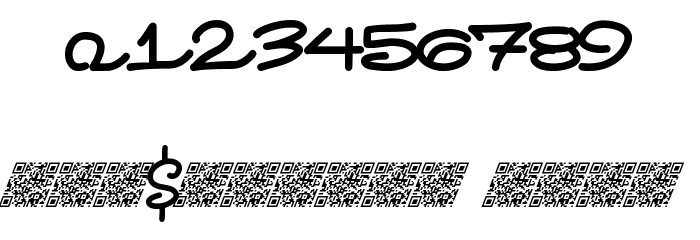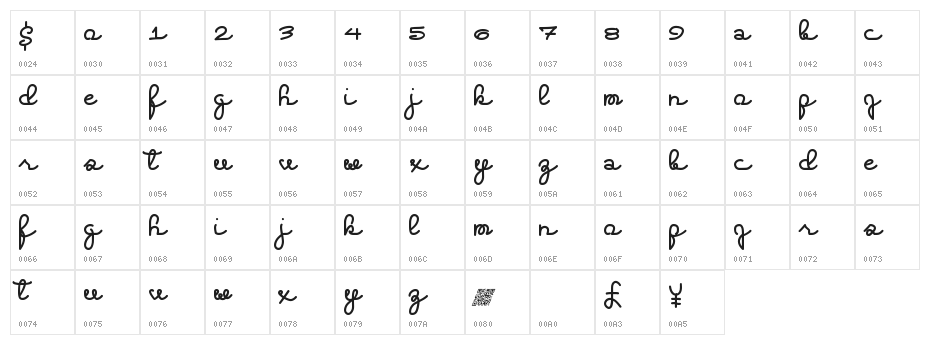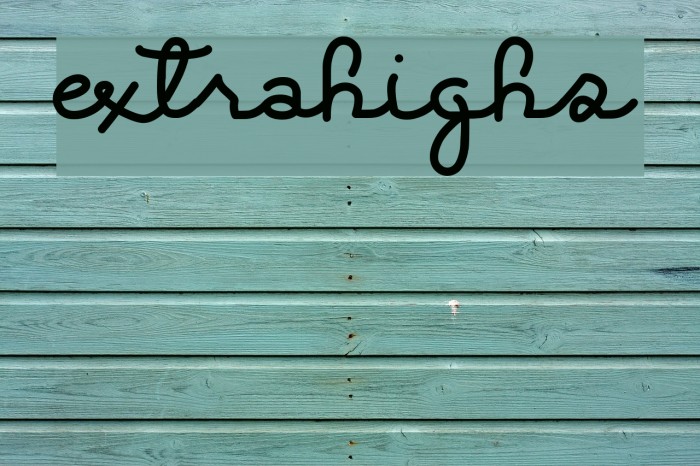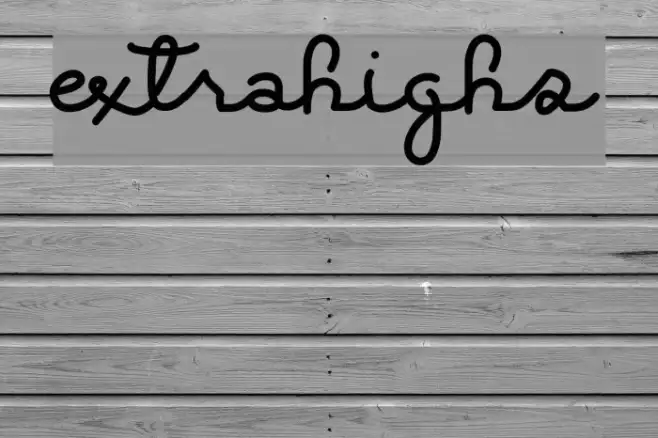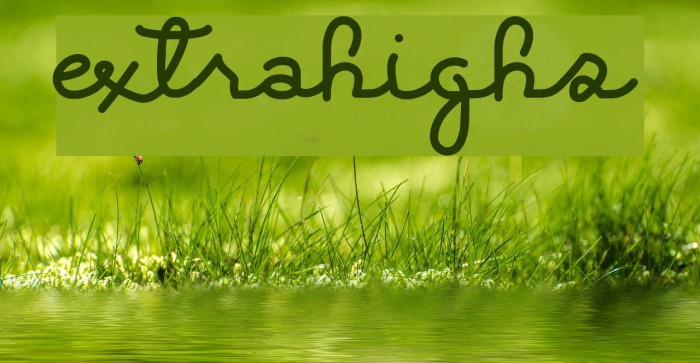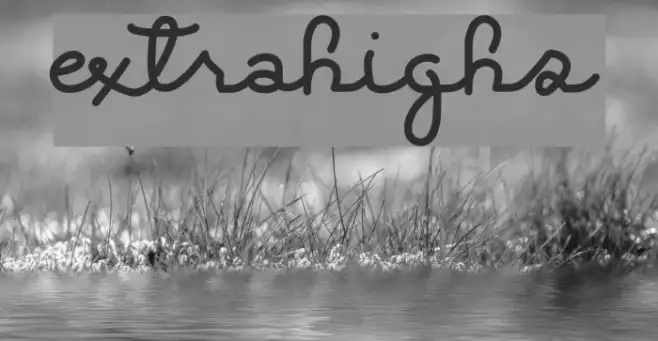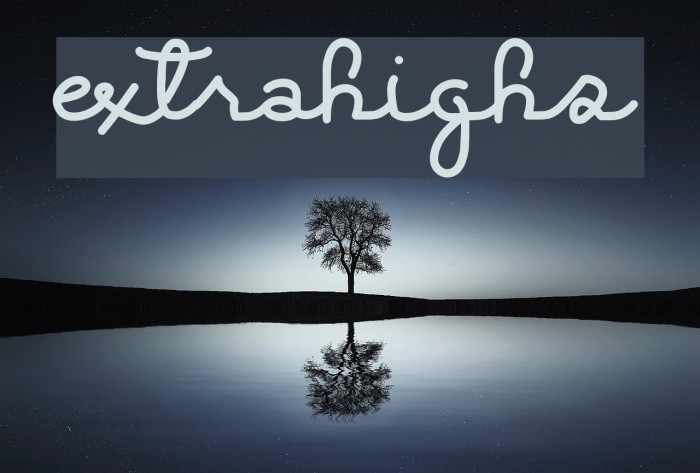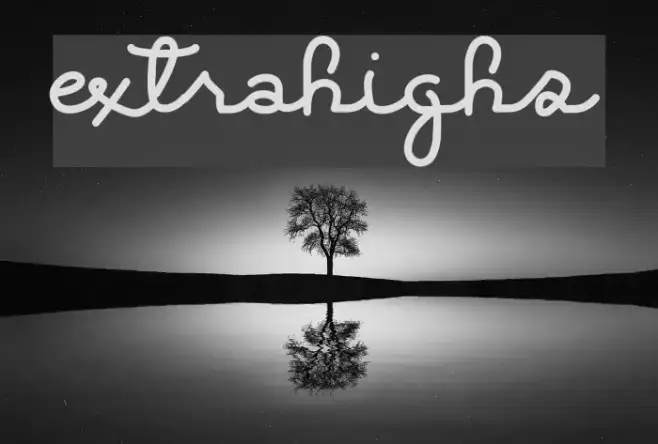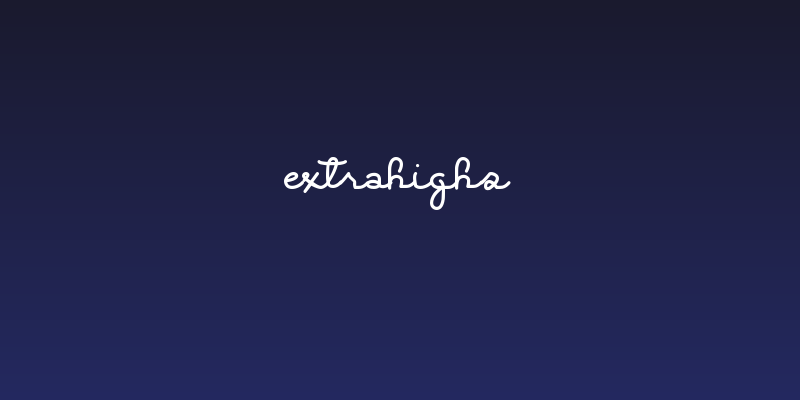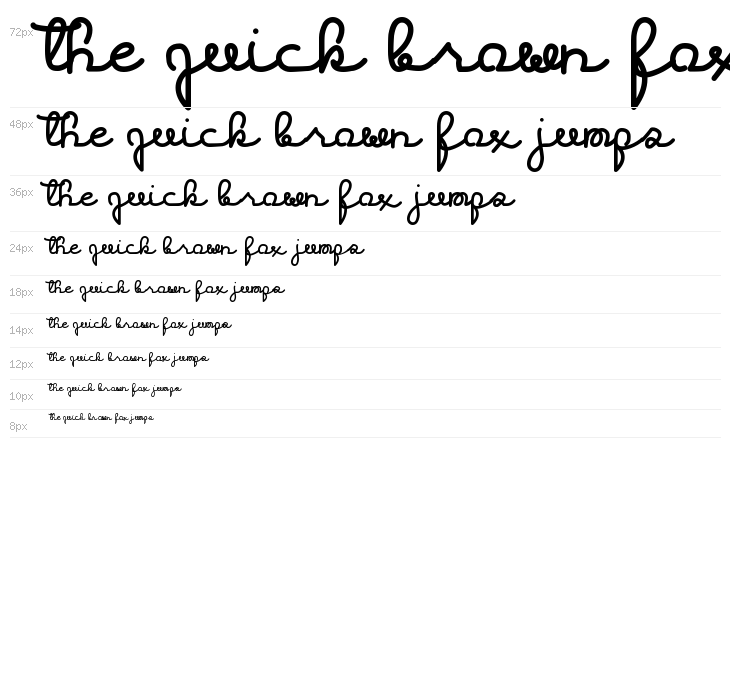
ExtraHighs Font
ExtraHighs Description
This font features a playful and whimsical script style, characterized by its flowing, interconnected letters. The strokes are smooth and rounded, giving it a friendly and approachable appearance. The lowercase letters are particularly distinctive with their looping ascenders and descenders, adding to the font's charm. The numerals and special characters maintain the same fluidity, ensuring consistency across all characters. This font is ideal for projects that require a personal touch, such as invitations, greeting cards, or branding materials that aim to convey warmth and creativity.
| Proposed Projects | Ideal for invitations, greeting cards, and creative branding materials. |